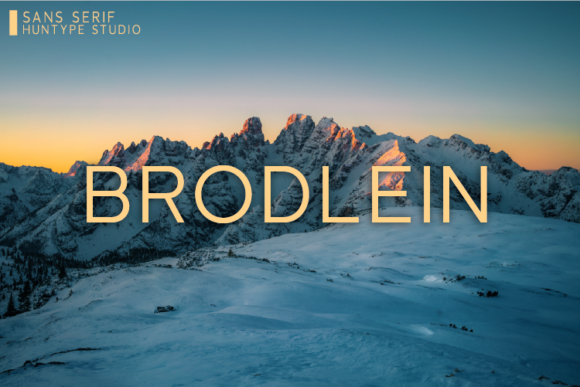
The Brodlein Font: A Designer’s New Best Friend?
I’ll never forget the time I was working on a branding project for a new coffee shop. My client wanted a clean, modern look that would appeal to a young audience, but I was struggling to find the perfect font. That’s when I stumbled upon Brodlein, a thin and simple lettered sans serif font that instantly caught my eye. In this article, I’ll share my experience with Brodlein, its features, and how to make the most of it in your designs.
An Honest Review of Brodlein
What I Love About Brodlein ✨
• ✅ Clean and minimalist design: Brodlein’s simplicity makes it perfect for a wide range of applications, from product packaging to posters and logos.
• ✅ Highly legible: Even at small sizes, Brodlein remains clear and easy to read, making it ideal for body text and quotes.
• ✅ Versatile: This font can be used for both digital and print projects, and its neutral design ensures it won’t compete with your content.
• ⚠️ Limited expressiveness: Brodlein’s simplicity can also be a limitation, as it may not convey the desired level of emotion or personality.
• ⚠️ May not be suitable for long-form text: While legible, Brodlein’s thin design may not be the best choice for extended blocks of text, as it can appear too light.
A Practical Guide to Using Brodlein
The Story Behind Brodlein
Brodlein was designed by a young type designer who wanted to create a font that would be both simple and versatile. Inspired by modernist design principles, Brodlein’s clean lines and minimalist aesthetic make it perfect for a wide range of applications. Although the designer remains anonymous, their work has quickly gained popularity among designers and crafters.
Q: What is Brodlein font best used for?
A: Brodlein is suitable for any branding, product packaging, invitation, quote, t-shirt, label, poster, or logo that requires a clean and modern look.